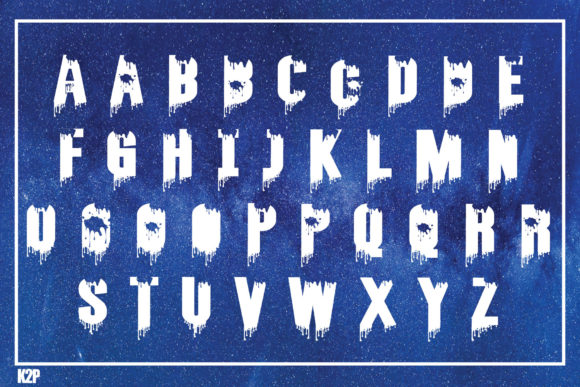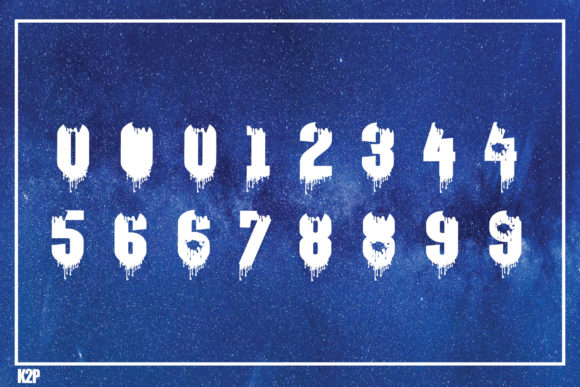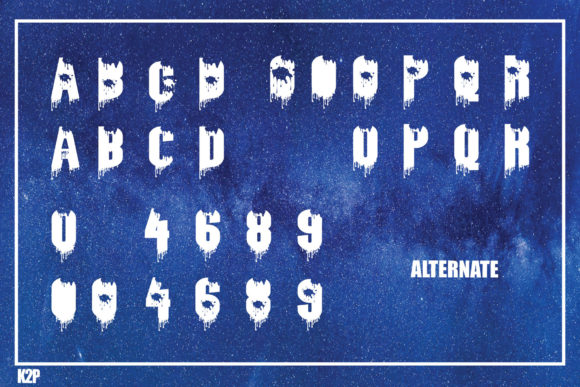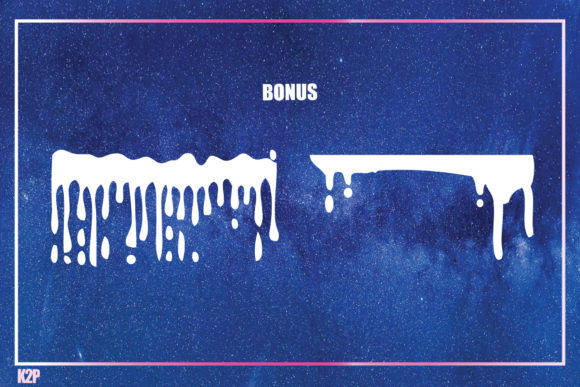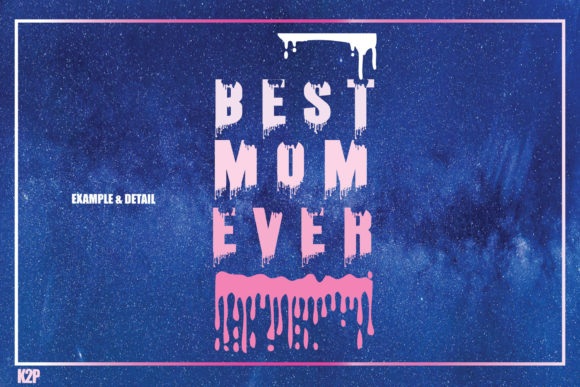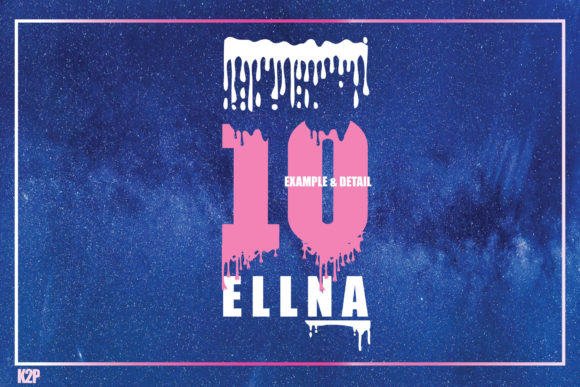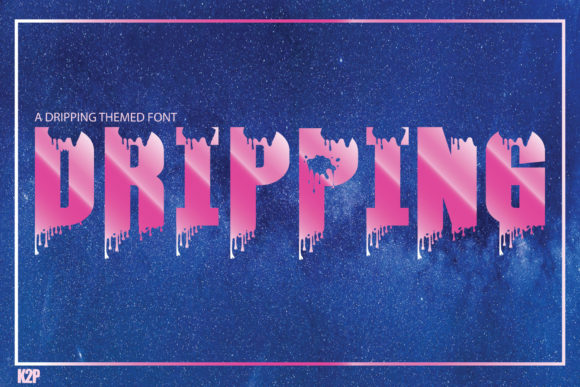
Dripping Font: Elevate Your Designs with a Unique and Authentic Touch
Are you tired of using the same old fonts for your designs? Do you want to add a personal and realistic feel to your quotes, teaching materials, and crafts? Look no further than the Dripping Font, a thick lettered yet unique and original decorative font that’s perfect for designers and crafters alike.
What is Dripping Font?
Dripping Font is a specially designed font that features a distinctive, dripping effect. Its authentic look and feel make it an excellent choice for adding a touch of realism to your designs. Whether you’re creating quotes, posters, or teaching materials, this font is sure to grab attention and make your work stand out.
Key Features of Dripping Font
- Unique and Original Design: Dripping Font boasts a one-of-a-kind design that’s sure to make your designs stand out from the crowd.
- Thick Lettering: The font features thick, bold lettering that’s perfect for creating eye-catching designs.
- Versatile: This font can be used for a wide range of design projects, from quotes and posters to teaching materials and crafts.
Benefits of Using Dripping Font
So, why should you choose Dripping Font for your designs? Here are just a few benefits of using this amazing font:
- Adds a Personal Touch: The authentic look and feel of Dripping Font add a personal touch to your designs, making them more relatable and engaging.
- Enhances Readability: The thick lettering and unique design of Dripping Font make it easy to read, even from a distance.
- Increases Creativity: With Dripping Font, you can create unique and eye-catching designs that showcase your creativity and style.
Use Cases for Dripping Font
Dripping Font is a versatile font that can be used for a wide range of design projects. Here are some use cases to get you started:
- Quotes and Posters: Use Dripping Font to create eye-catching quotes and posters that grab attention.
- Teaching Materials: Add a personal touch to your teaching materials, such as worksheets and presentations, with Dripping Font.
- Crafts and DIY Projects: Use Dripping Font to add a unique and authentic touch to your craft and DIY projects, such as handmade cards and gift tags.
- Social Media Graphics: Create engaging social media graphics with Dripping Font, perfect for sharing quotes, inspiration, and more.